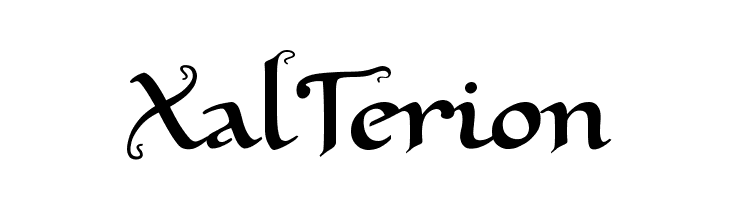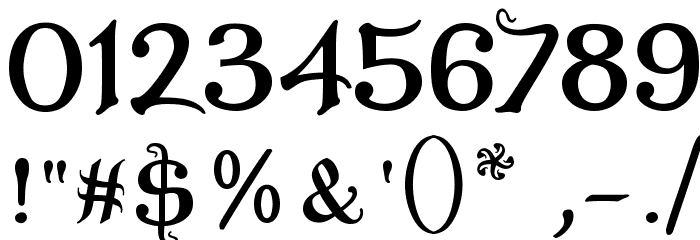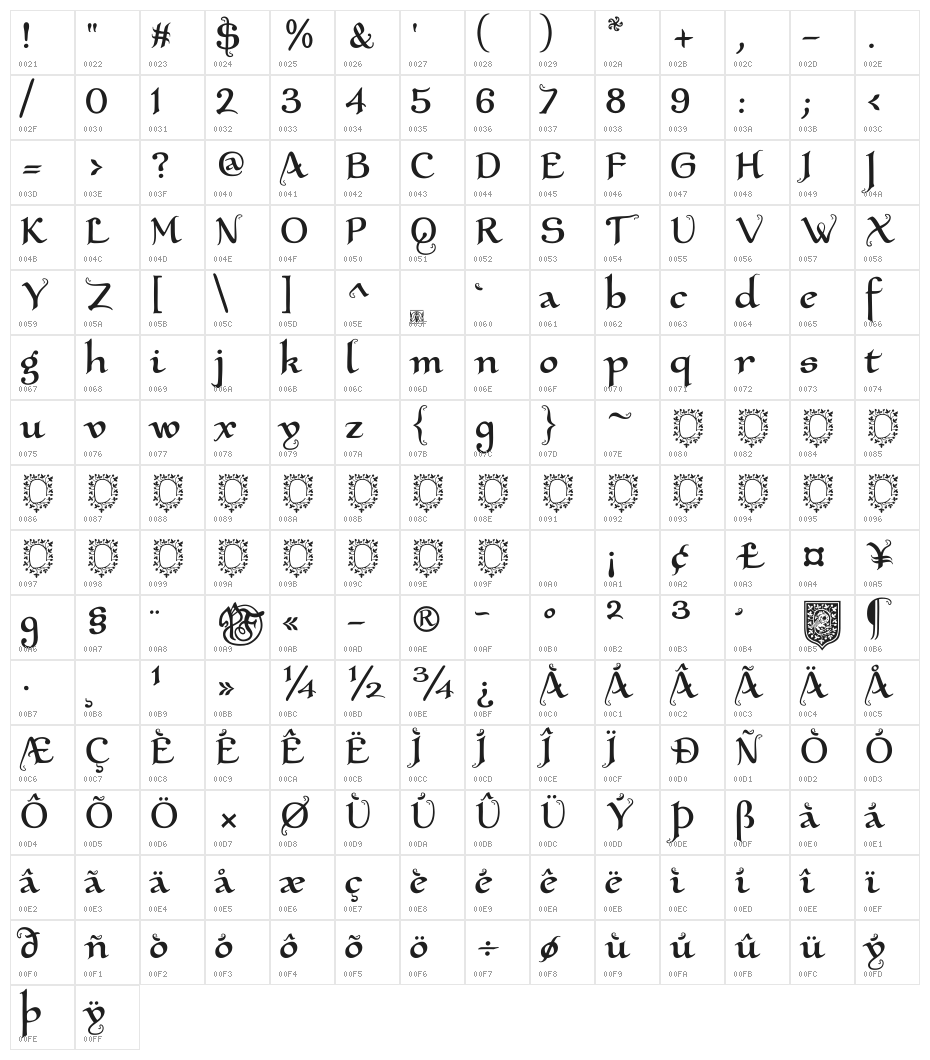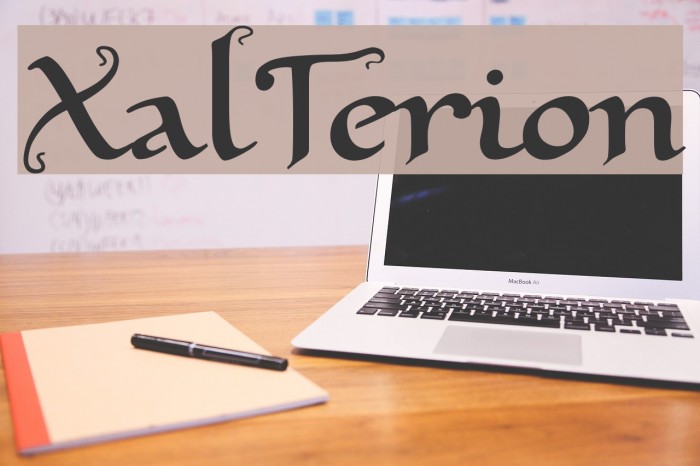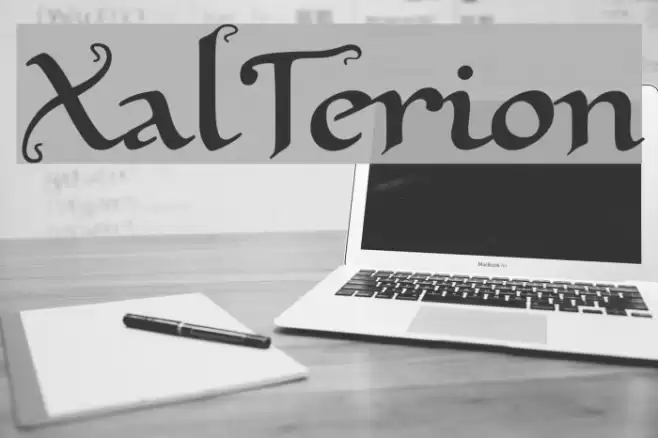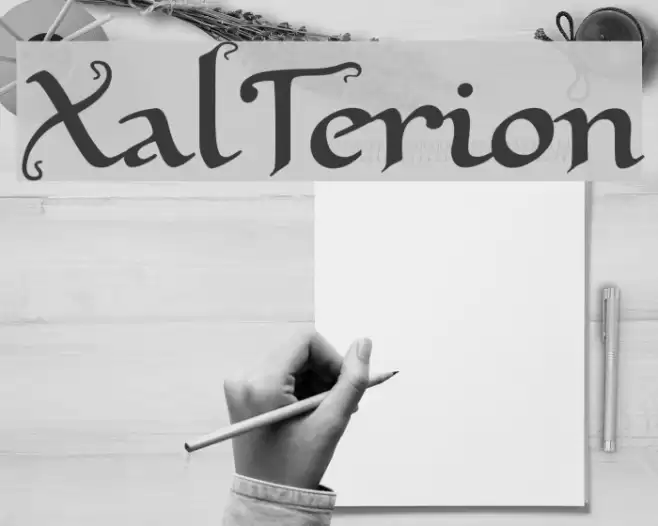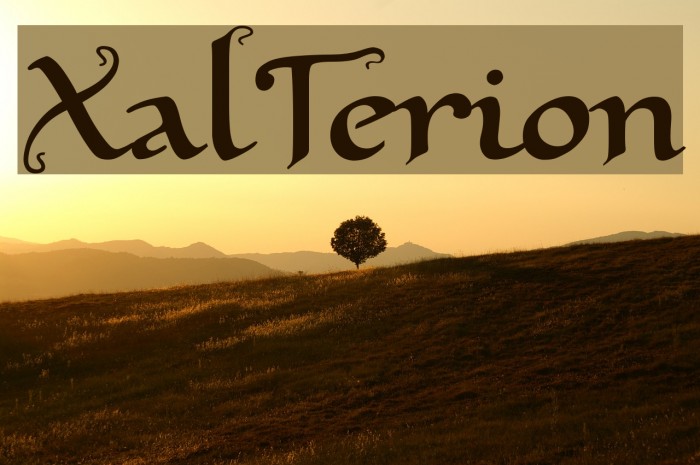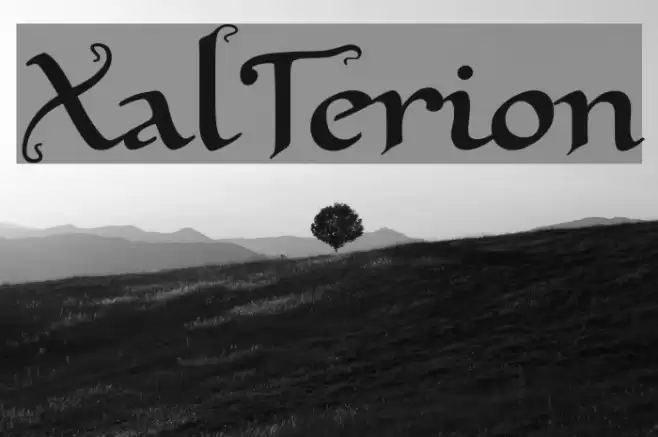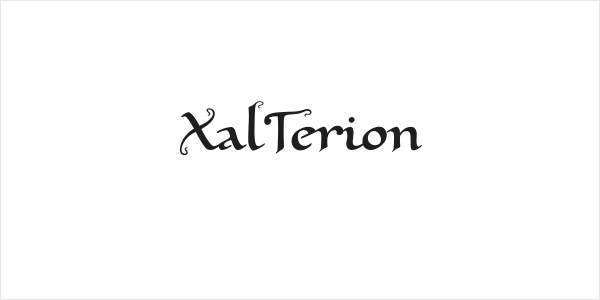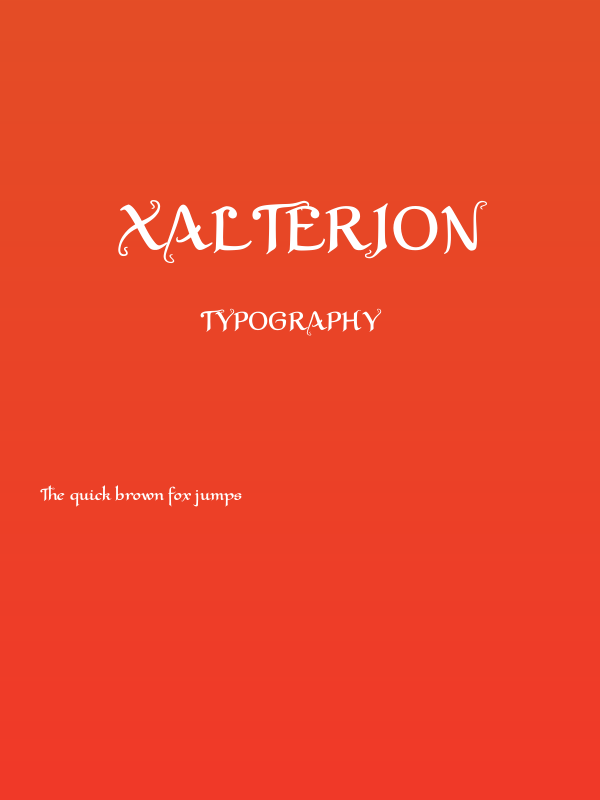
XalTerion Font
XalTerion Description
This font features an elegant and decorative style with a distinct flair in its design. The uppercase letters are adorned with subtle flourishes, giving them a sophisticated and artistic appearance. The lowercase letters maintain a consistent style, with gentle curves and a slightly whimsical touch. The numerals are bold and clear, ensuring readability while maintaining the overall aesthetic. Special characters are creatively designed, adding to the font's unique charm. This font's intricate details and artistic elements make it stand out, perfect for projects that require a touch of elegance and creativity.
| Use Case | Logos, Invitations, Posters |
| Proposed Projects | Ideal for wedding invitations, luxury branding, artistic posters, and creative projects requiring a decorative touch. |